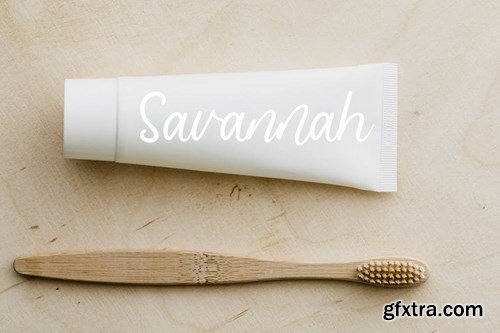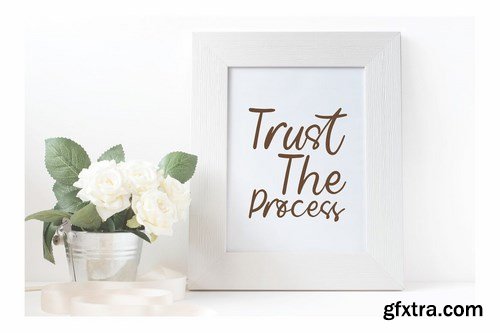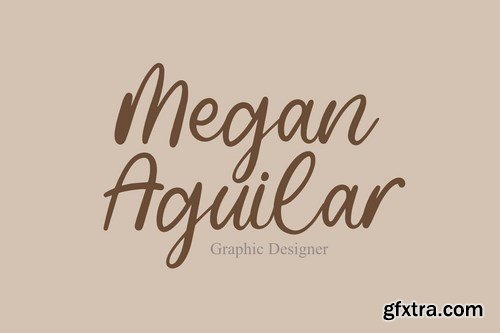
Introducing, Billowy Font. With a natural handwriting script style, perfect for all of your craft projects. This font is perfect for shirt designs, websites, svg designs, home decor, branding, blogs, logos, invitations and more.
Features: Uppercase & lowercase Numbers and punctuation Multilingual Ligatures PUA Encoding